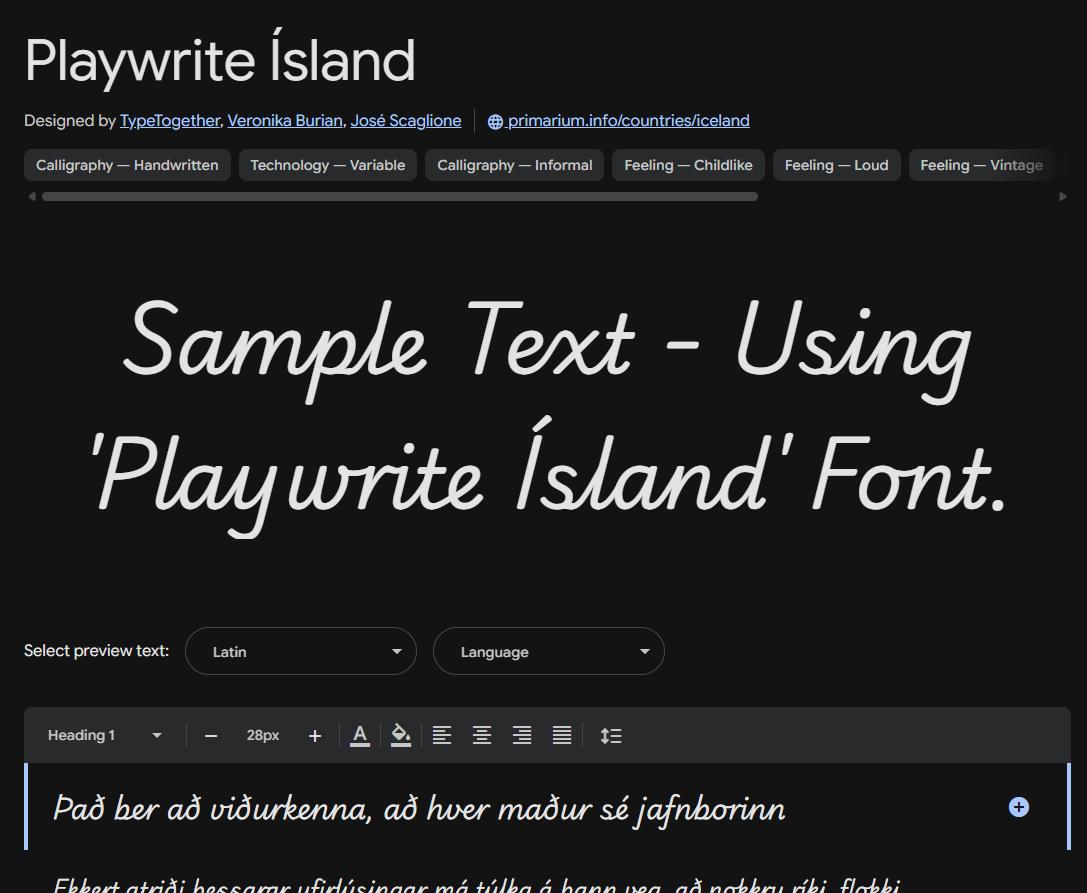
Playwrite Ísland emerges as a specialized pedagogical instrument within the expansive Google Fonts ecosystem, masterfully engineered by TypeTogether's Veronika Burian and José Scaglione to digitize the unique cursive traditions of Icelandic primary education. As a variable font structured along a single weight axis, it employs sophisticated interpolation to bridge the gap between static print and fluid handwriting, ensuring that every glyph maintains its structural integrity across varying optical scales. By integrating localized letterforms with modern OpenType capabilities, this typeface provides a semantic link between traditional penmanship and digital literacy, offering a high-fidelity typographic solution that respects the specific ductus and rhythm of the Ísland school-hand model while maximizing legibility through precise humanist geometry.
Playwrite Ísland redefines educational typography by merging high-end variable font technology with the soulful imperfections of informal handwritten calligraphy, specifically tailored to the linguistic heritage of Iceland. This typeface eschews the rigidity of traditional scripts for a playful and childlike vitality, where each variable weight and slant axis amplifies a loud, happy personality that commands attention on the digital canvas. By integrating a rugged texture with a distinctly vintage charm, the font family bridges the gap between mid-century pedagogical primers and modern responsive design, offering a tactile, happy aesthetic that remains functionally robust. Its unique industry position lies in this synthesis of informal spontaneity and technical precision, delivering a loud and expressive typographic voice that feels both historically grounded and vibrantly contemporary.
Due to its specific origin as a pedagogical tool mimicking the Icelandic school script, Playwrite Ísland-a variable font featuring a singular slant axis and organic stroke ductus-is fundamentally unsuitable for high-stakes corporate environments like legal auditing or pharmaceutical labeling where absolute character disambiguation and high-speed glanceability are non-negotiable. While Veronika Burian and José Scaglione engineered this typeface with fluid, semi-connected letterforms to facilitate motor skill development, its inherent lack of rigid vertical metrics and the presence of complex cursive junctions can trigger cognitive friction in dense financial data visualization or technical blueprints. Furthermore, in the context of accessibility compliance under WCAG guidelines for low-vision users, the variable cursive nature of this TypeTogether release fails to provide the high-contrast stroke terminals and uniform x-heights required for industrial-grade OCR processing or long-form medical documentation where rhythmic, neutral neo-grotesques are traditionally mandated to prevent the misinterpretation of complex alphanumeric nomenclature.
This typeface is exceptionally suited for educational platforms, editorial layouts focused on storytelling, and branding projects that require an authentic human touch. Its design architecture follows Icelandic pedagogical standards, utilizing specific glyph constructions that reflect regional handwriting traditions and cursive fluency.
The font employs sophisticated OpenType features to ensure that character joins appear natural and fluid as the user types. By utilizing a complex system of contextual alternates, the typeface maintains a consistent baseline rhythm that mimics the mechanical movement of a pen on paper.
While aesthetically pleasing, this script font is generally not recommended for long-form body text because the intricate joins can lead to visual fatigue. Quantitative legibility studies indicate that the high frequency of ascenders and descenders in cursive scripts significantly increases cognitive load compared to standard sans-serif typefaces.
To create a balanced layout, it is best to pair this expressive script with clean, geometric sans-serifs or low-contrast slab serifs. This contrast ensures that the script's variable stroke width remains the focal point without competing with the structural rigidity of the secondary typeface.
It should be used primarily for decorative headers or short callouts to ensure that the content remains accessible to users with visual impairments or reading difficulties. Analysis of character recognition patterns shows that the continuous stroke of cursive joins can negatively impact the decoding speed for users with dyslexia.
The variable weight axis provides designers with the flexibility to scale the font's presence from a delicate, thin hairline to a bold, authoritative stroke. Utilizing the Weight (wght) axis allows for precise optical sizing adjustments, ensuring the stroke-to-counter ratio remains stable across different viewing distances.
It is effective for personalized UI elements or onboarding screens but can become problematic in navigation menus where space is limited. Rendering tests on high-density displays show that the font's fine connectors require sub-pixel anti-aliasing to prevent visual fragmentation at small point sizes.
Designers should implement a generous line-height to accommodate the tall vertical extensions characteristic of the Icelandic script style. Technical metrics suggest a minimum line-height of 1.6 to prevent "collision" between the descenders of the upper line and the ascenders of the line below.
Increasing the tracking or letter-spacing is generally discouraged as it breaks the physical connections between the glyphs that define the script. The font's internal kerning tables are specifically optimized to preserve the integrity of the cursive joiners, which are essential for maintaining the intended calligraphic rhythm.
The typeface excels in high-resolution print environments where the smooth Bézier curves are rendered with maximum precision. Vector path analysis confirms that the font's mathematical outlines are optimized for 300+ DPI output, while digital performance is enhanced by modern hinting instructions that stabilize the baseline on lower-resolution screens.